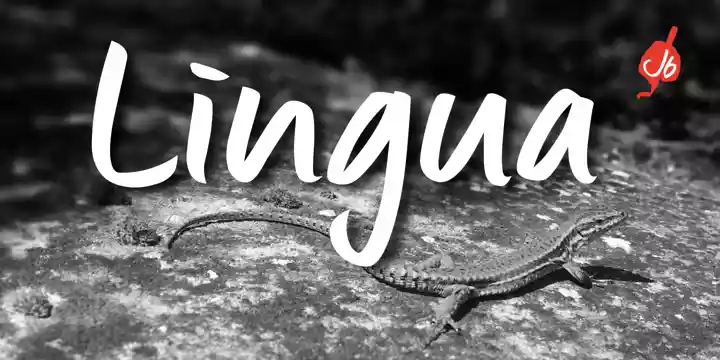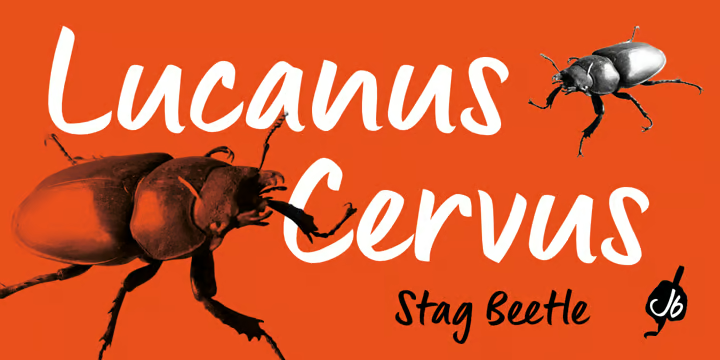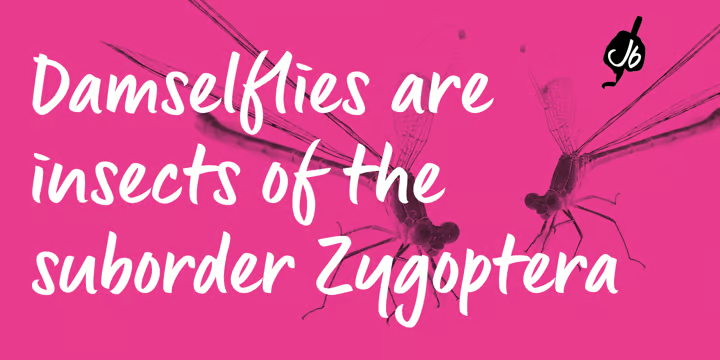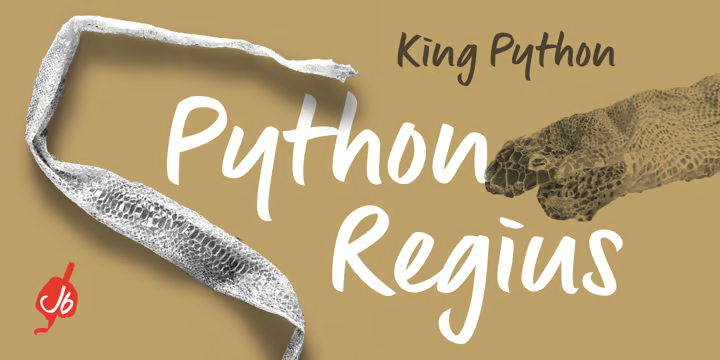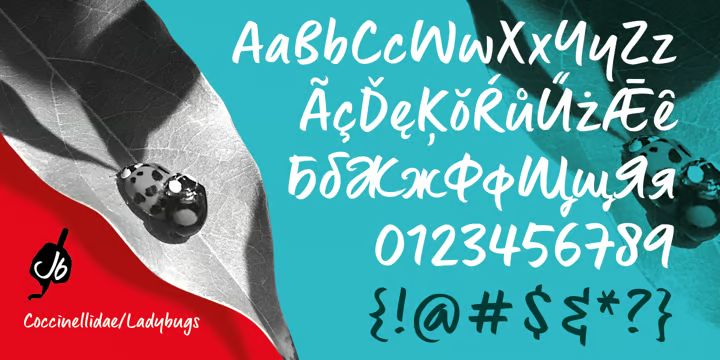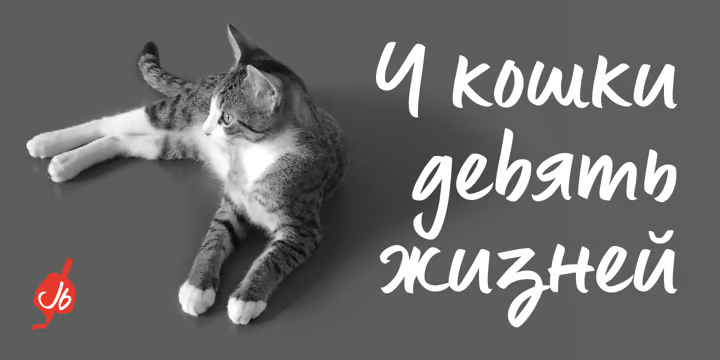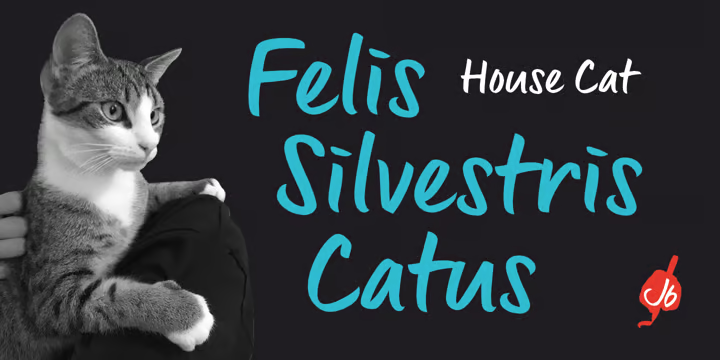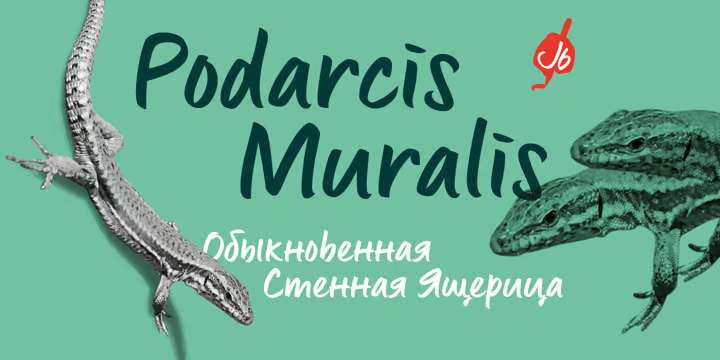
Lingua Font
Lingua is the unlikely offspring of our CAPUT font. Wondering what the undercast characters of this font would look like, I started writing. I was pleased with the first results and this encouraged me to pursue the process. The final font still has some slight resemblance to its predecessor, but stands completely on its own. This bold, sturdy typeface is very suitable for headers, posters and other designs where large sizes are needed. It comes with both a western and a cyrillic character set.
Lingua Font is a Display Fonts font that brings a professional and versatile look to your projects. Lingua is the unlikely offspring of our CAPUT font.